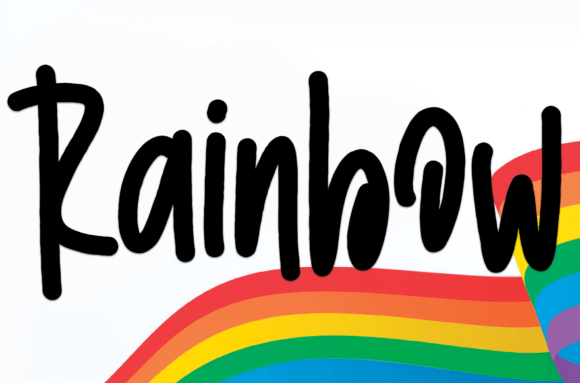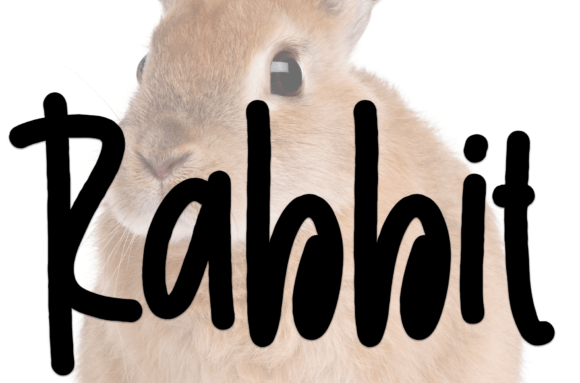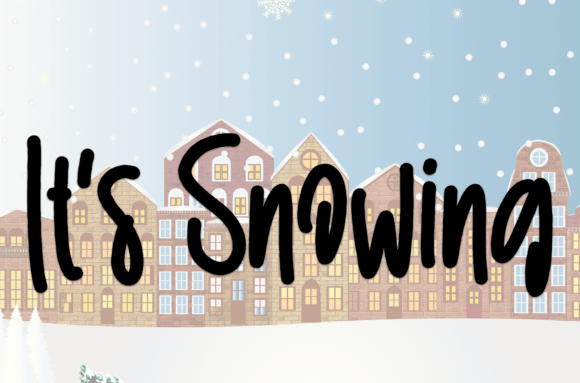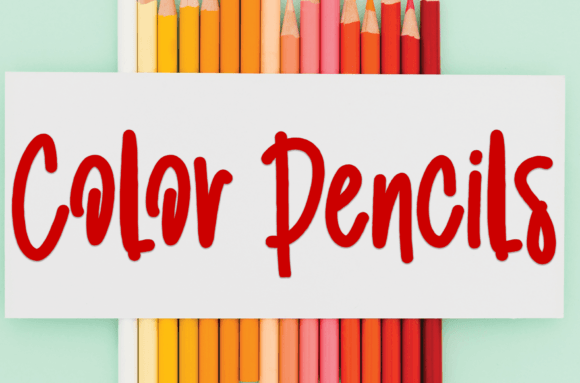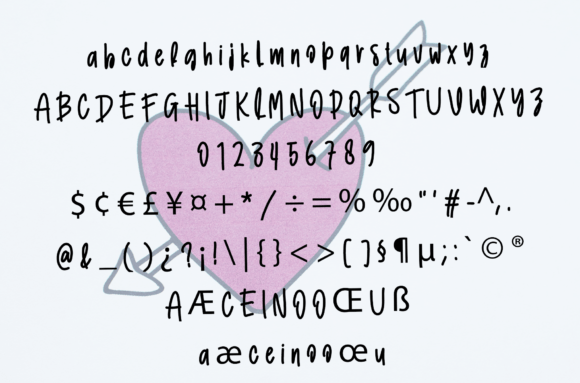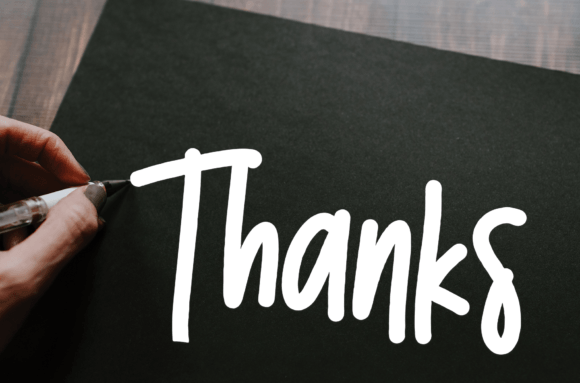
Introduction to Picture Book Font
Picture Book is a sweet and friendly handwritten font.
Cute and fun, this font is ideal for writing wedding invitations, cards, or any other design that might need a fun touch .
Key Features of Picture Book Font